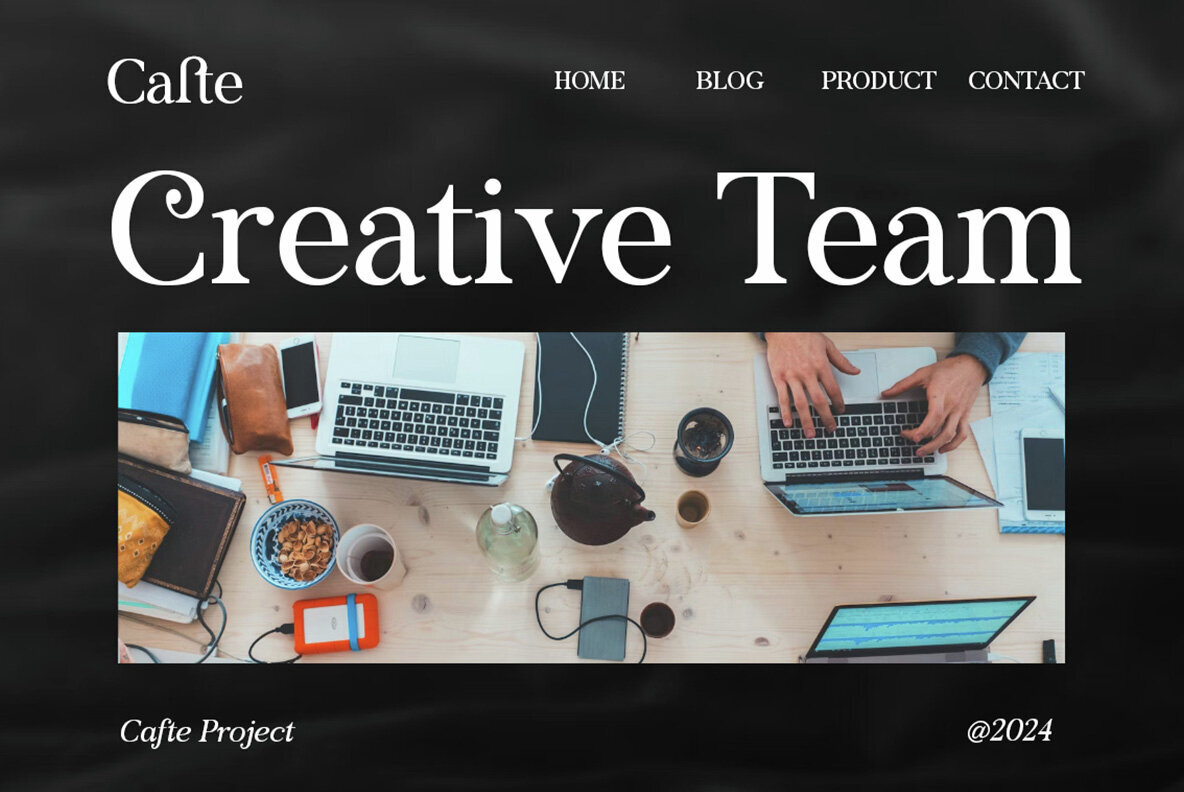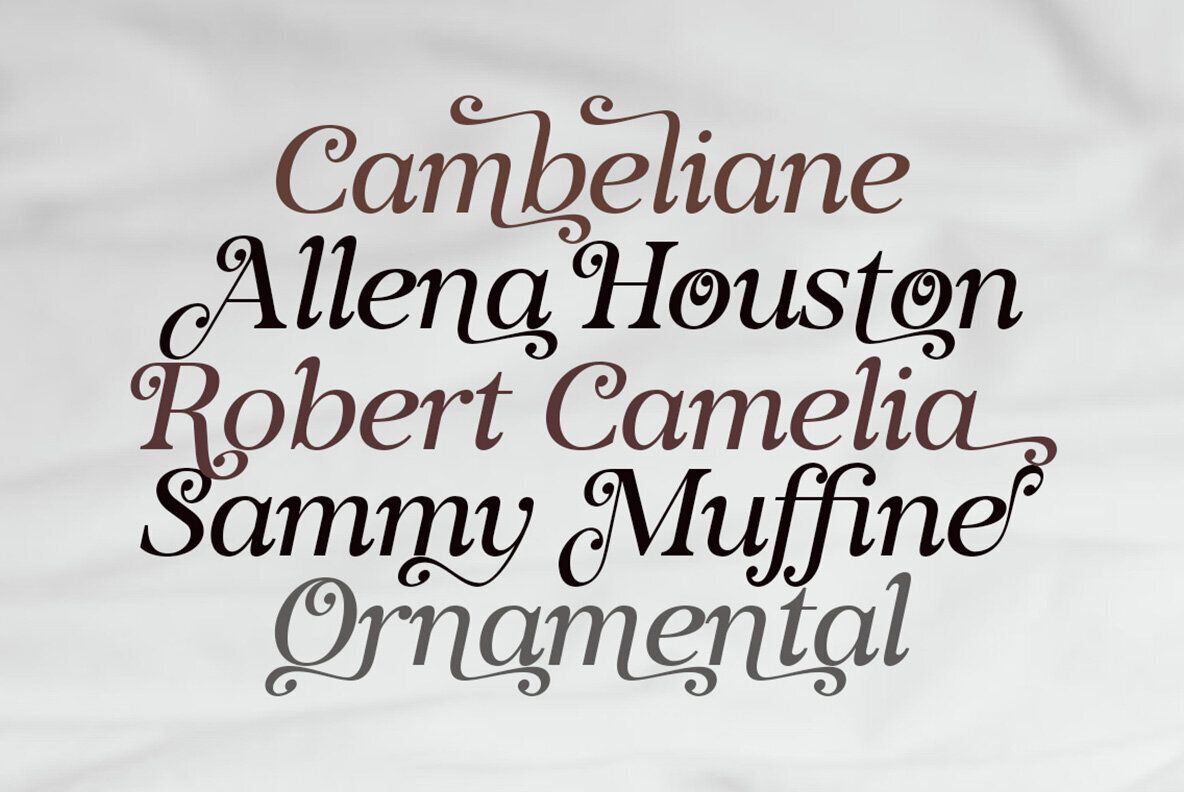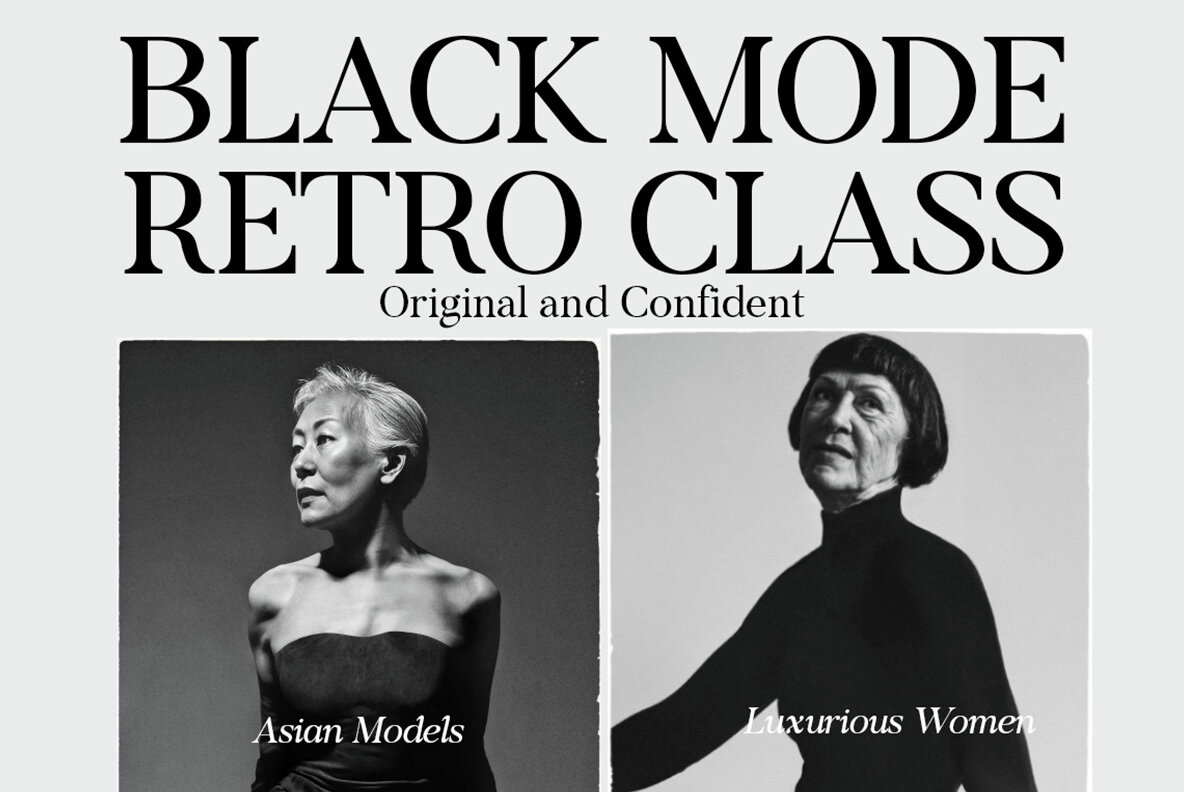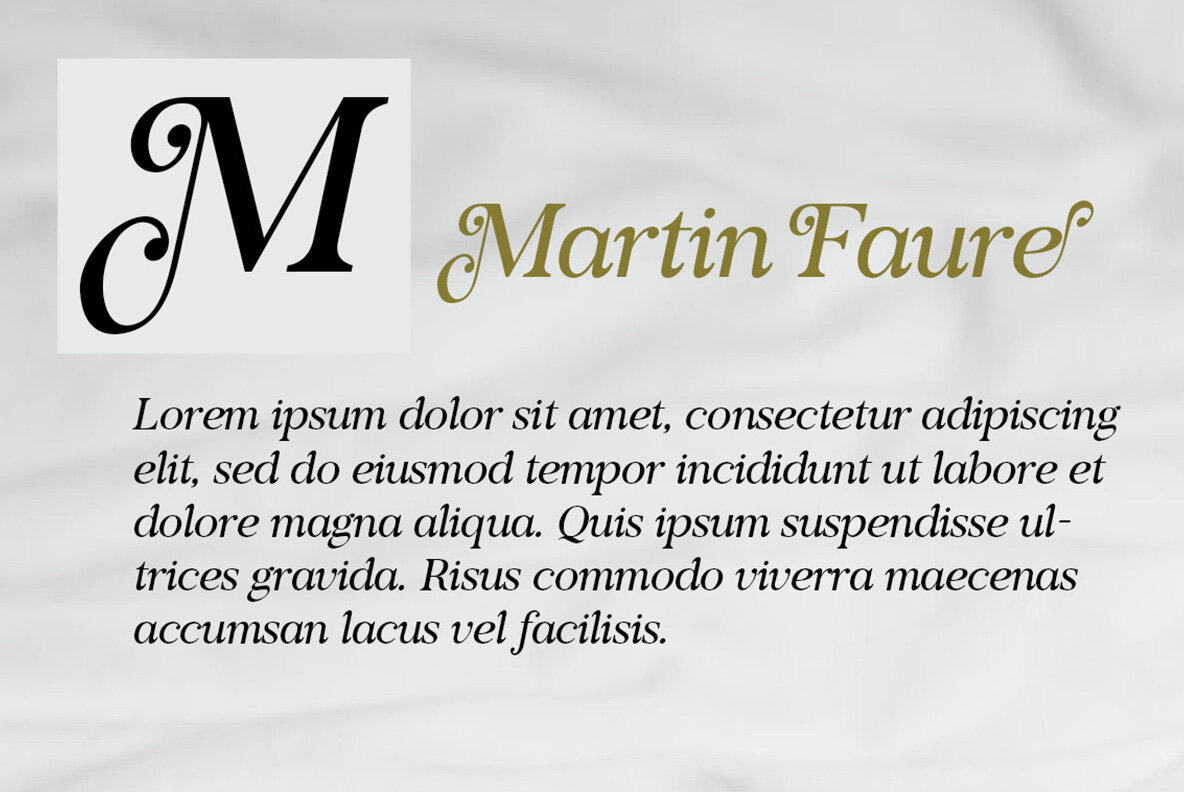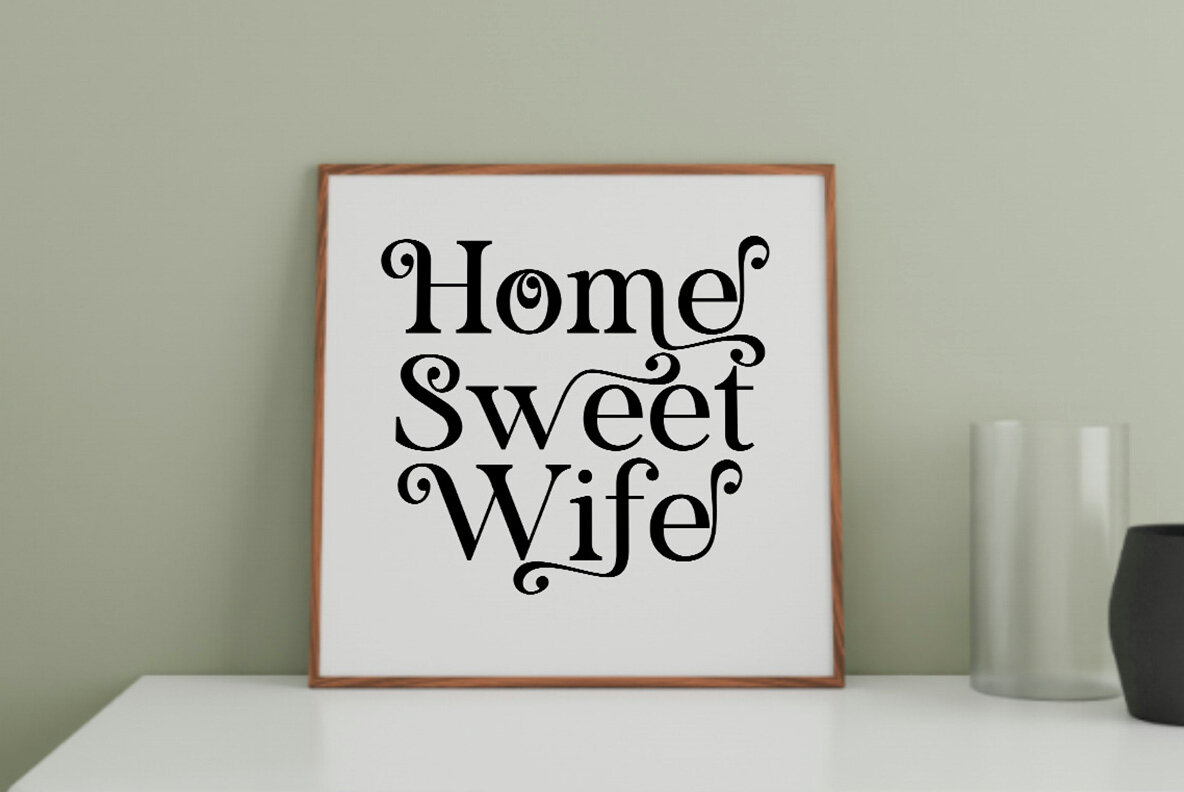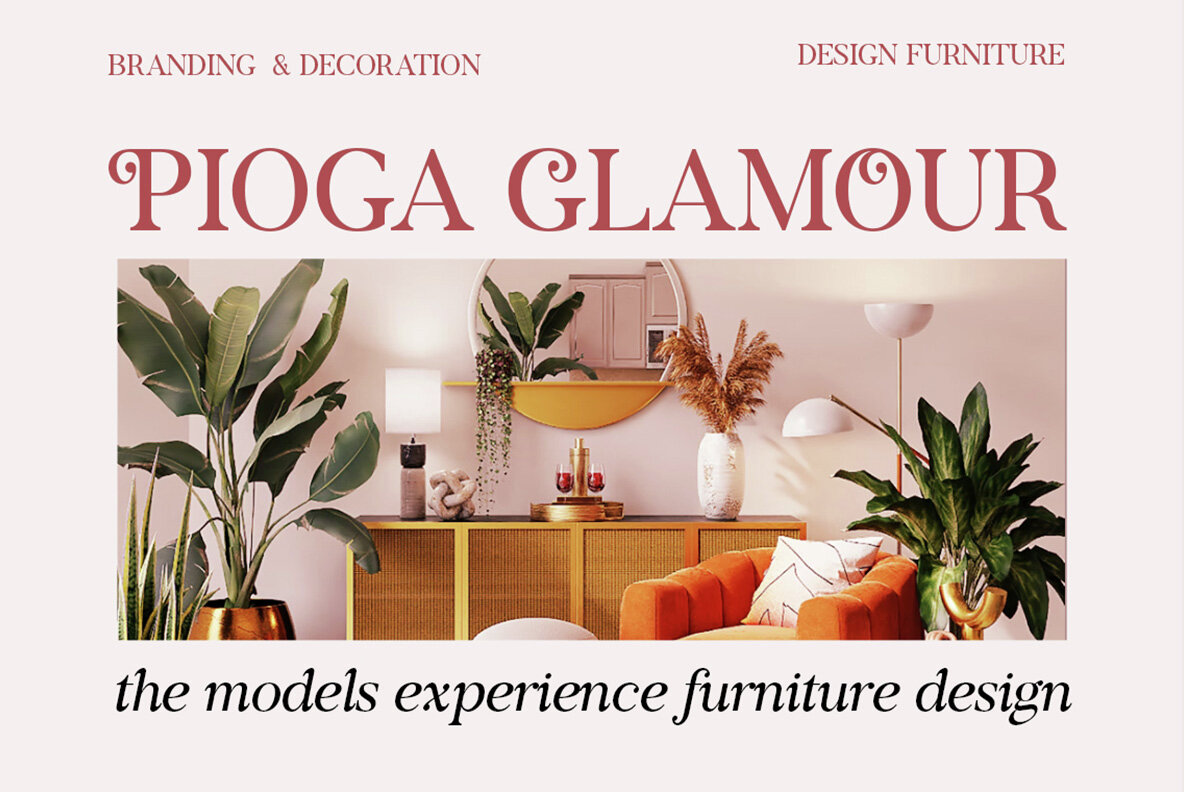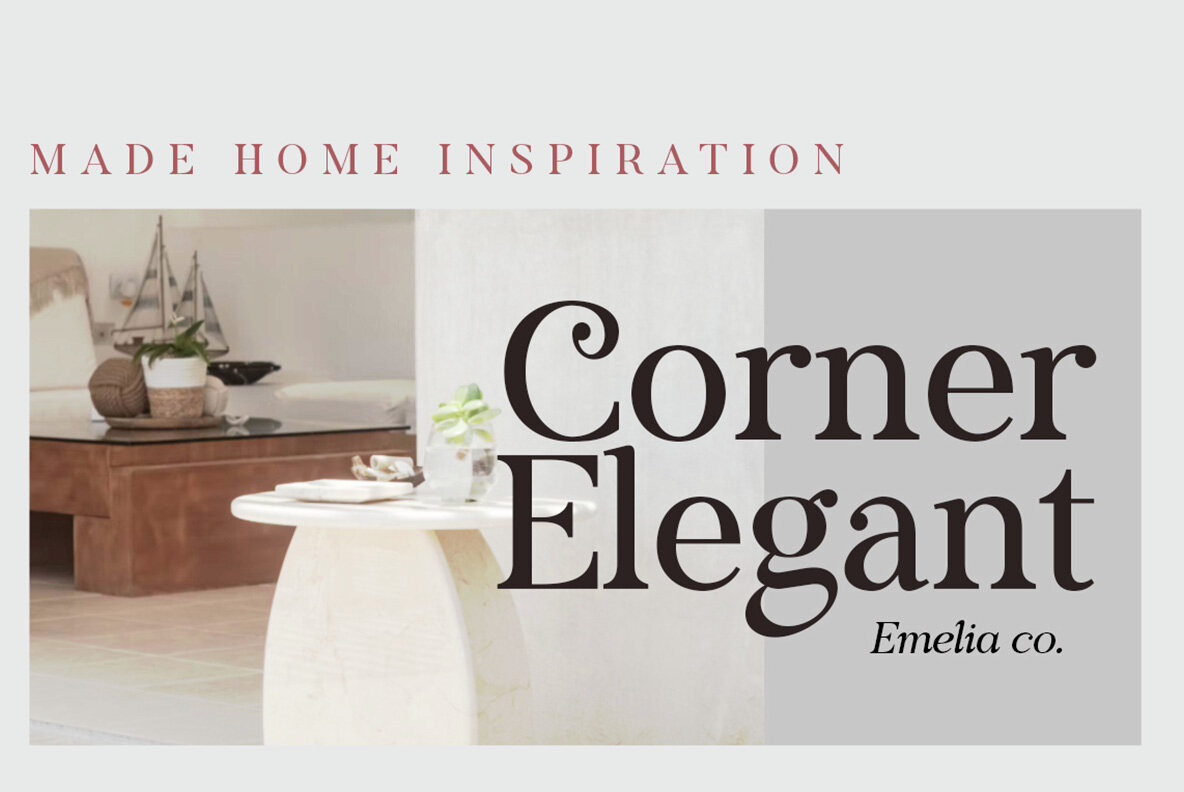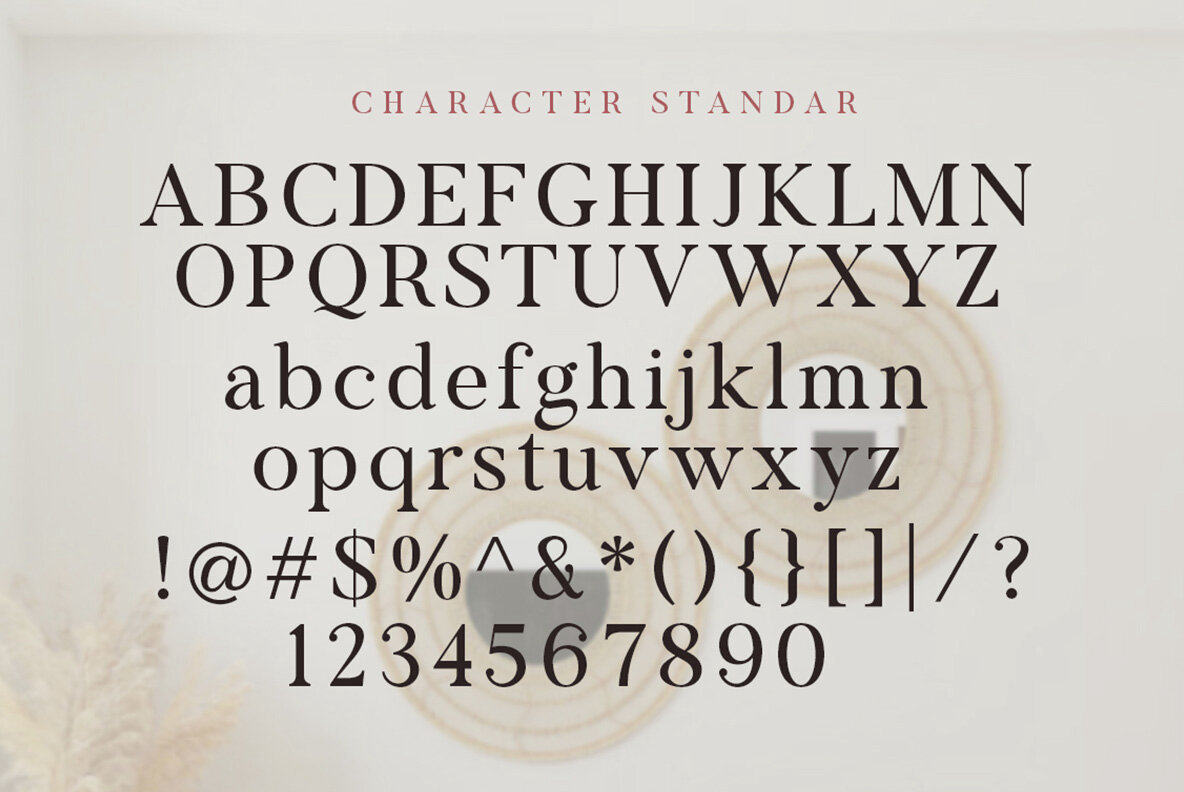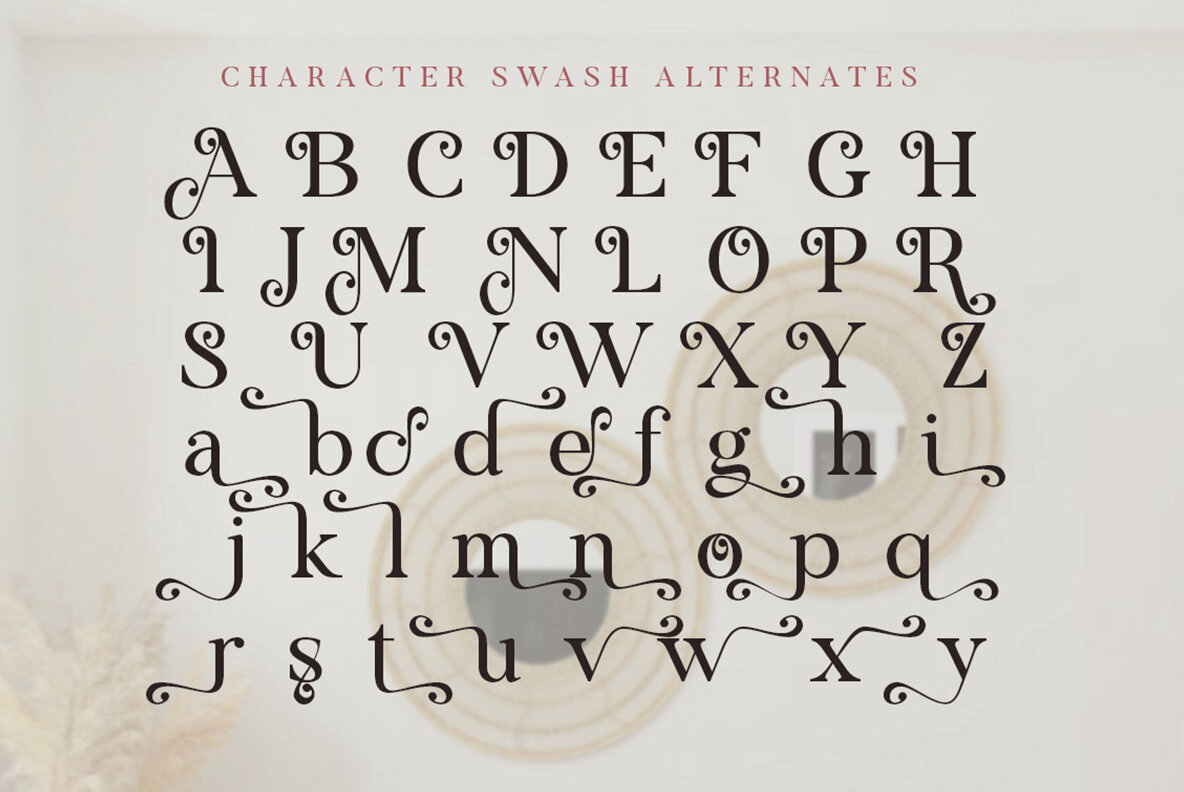
Voster Noise Font
This elegant serif font is ideal for projects requiring a classic and professional touch. Its refined lines make it perfect for book typesetting, editorial use, and corporate materials. Perfectly suited for both digital and print, it offers excellent readability for body text and adds a timeless quality to headings.